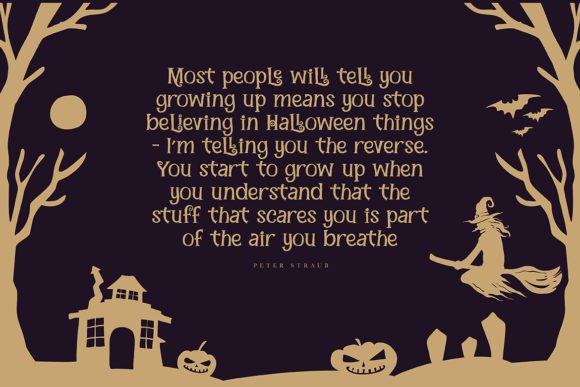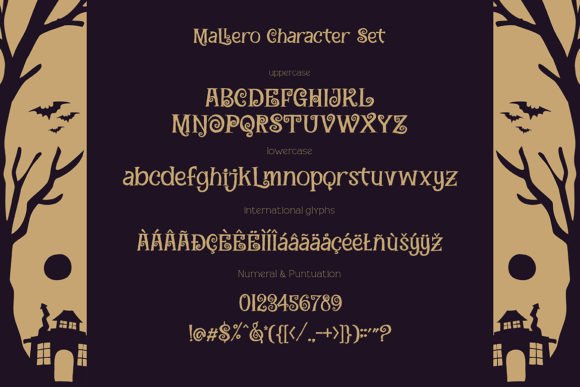
Introduction to Mallero Font
As designers, we’ve all been there – stuck in a creative rut, searching for that perfect font to elevate our project from ordinary to extraordinary. And then, like a beacon of inspiration, it hits us – the perfect font that brings our vision to life. For those who have been searching, we’ve got exciting news – the Mallero Font is here, and it’s a game-changer for your creative projects.
Whether you’re working on a spooky Halloween invitation, a poster design for a book launch, or even branding materials for a new business, the Mallero Font is the perfect addition to your design arsenal. Its unique, eerie aesthetic is sure to captivate your audience and leave a lasting impression.
Key Features of Mallero Font
- High-quality, professional font design ideal for creative projects
- Includes a range of characters, including uppercase and lowercase letters, numbers, and symbols
- Features a unique, modern design that can add a touch of sophistication to any project
Honest Review: Mallero Font
Here are some aspects that work well:
- ✨ High quality design: The Mallero Font is designed with precision and care, making it perfect for any creative project that requires a sophisticated look.
- ✨ Transparent background: This feature allows for seamless integration with any design element, giving you complete control over the look and feel of your project.
- ✨ Versatility: The Mallero Font can be used in a wide range of contexts, from branding to digital media, making it a valuable addition to any designer’s toolkit.
- ⚠️ Limited font styles: While the Mallero Font is high quality, it only comes in a few styles, which may limit its versatility in certain situations.
- ⚠️ No support for non-standard characters: Unfortunately, the font doesn’t support non-standard characters, which can be a problem for designers working with languages that use a wide range of characters.
Overall, I’m impressed with the Mallero Font, and I would definitely recommend it to fellow designers. With its high quality design, transparent background, and versatility, it’s a valuable addition to any design resource library. However, its limitations should be taken into account when deciding whether to use it for a particular project.
For the most out of the Mallero Font, experiment with different font sizes, colors, and combinations to create unique and eye-catching designs. This versatile font is perfect for a variety of creative projects, from social media graphics to presentations.
The Mallero Font is ideal for use in a variety of creative projects, including graphic design, digital art, and presentations. Its high-quality design and transparent background make it a valuable design resource for anyone looking to create professional-looking designs.